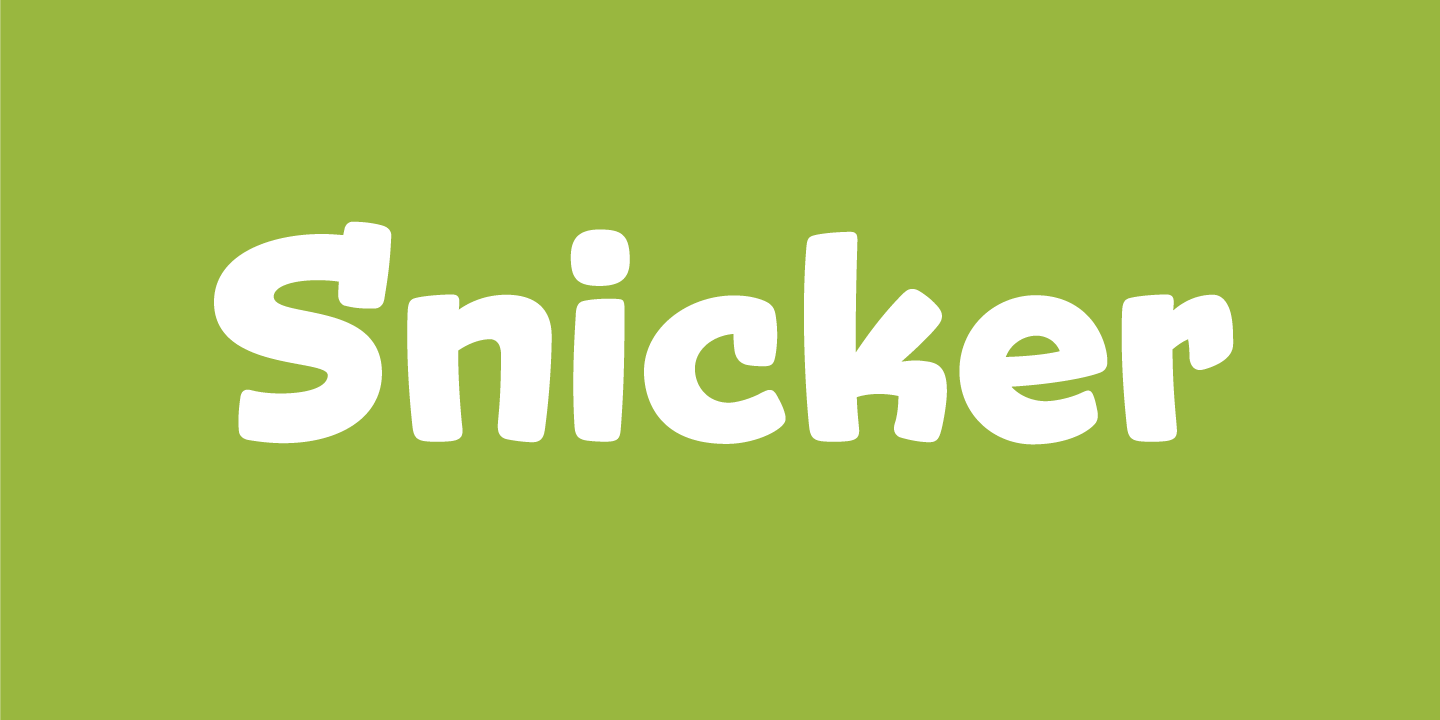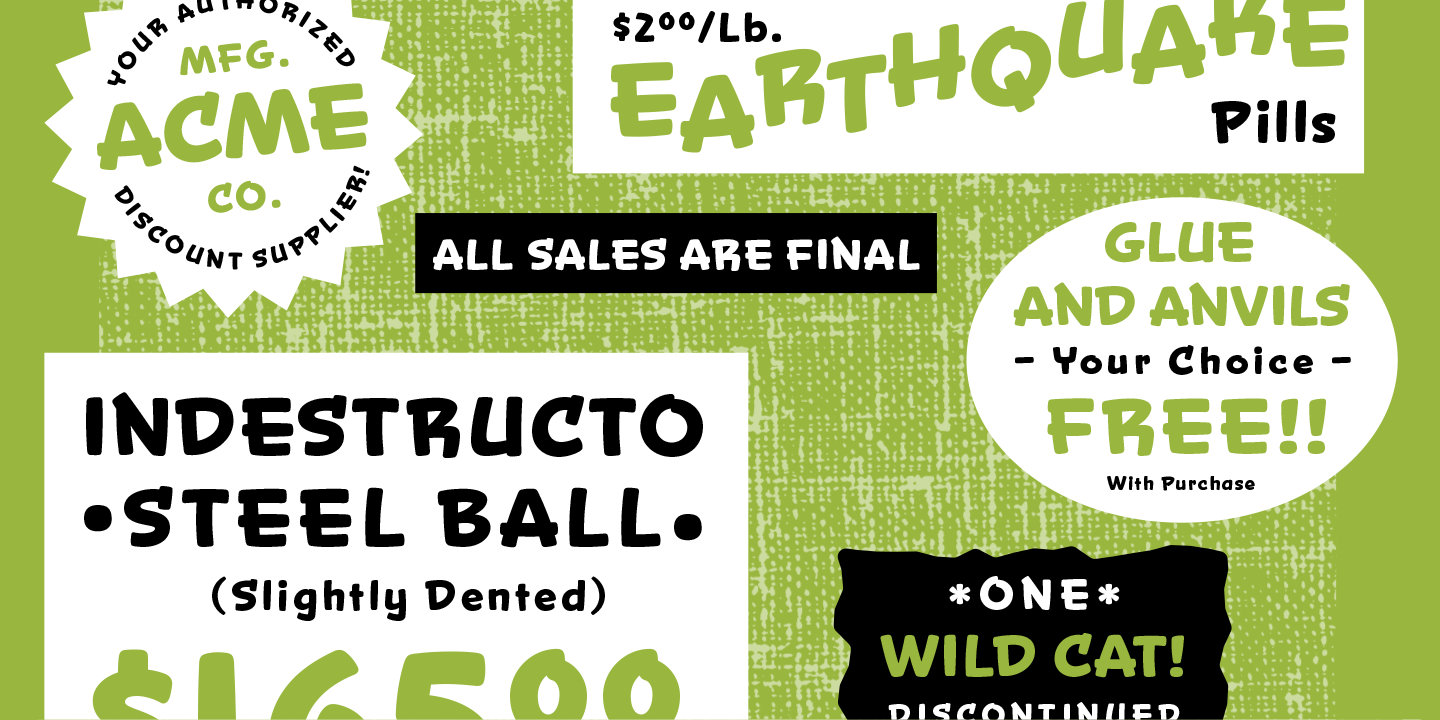
About the Snicker Font
About Snicker Font Family Snicker (2007) is a playful 1940s-style brush-lettered sans serif, It was inspired by hand-lettered titles in Fleischer Brothers’ Superman cartoon series, The font includes some extra features when used with OpenType-savvy applications including case-sensitive punctuation, automatic fractions, and extended language support